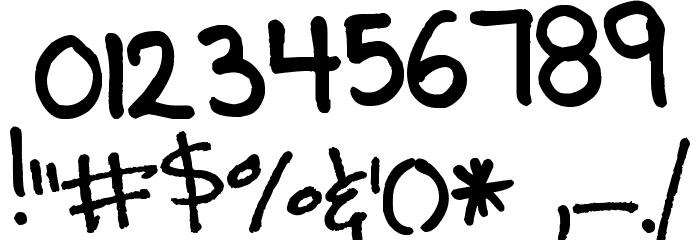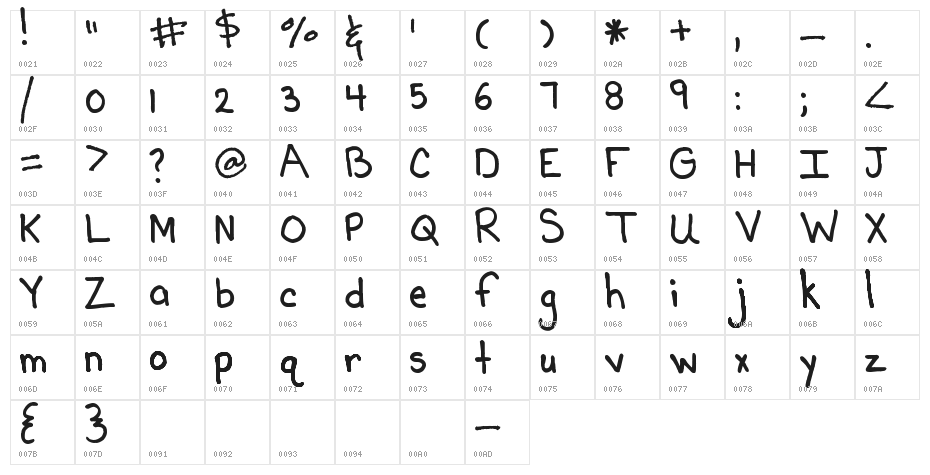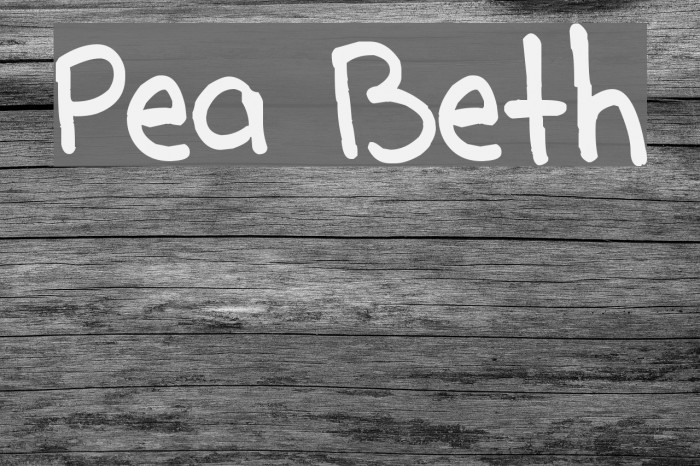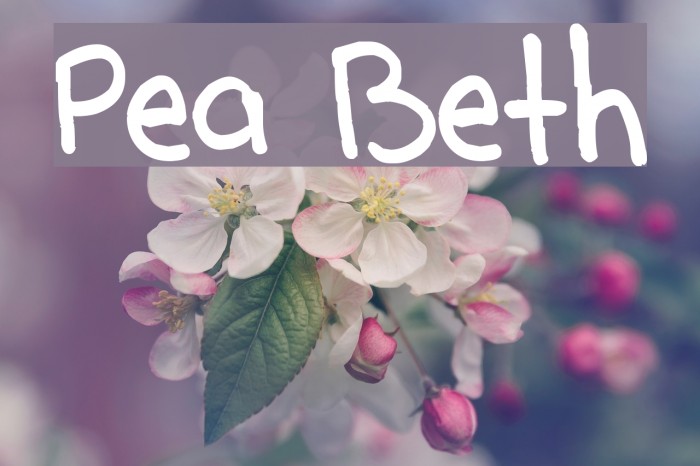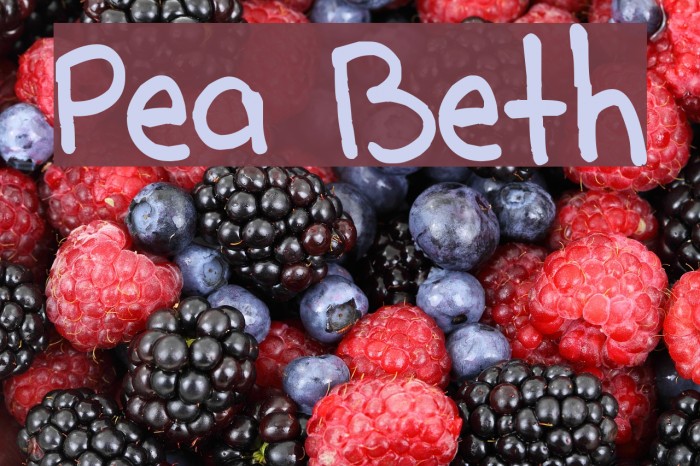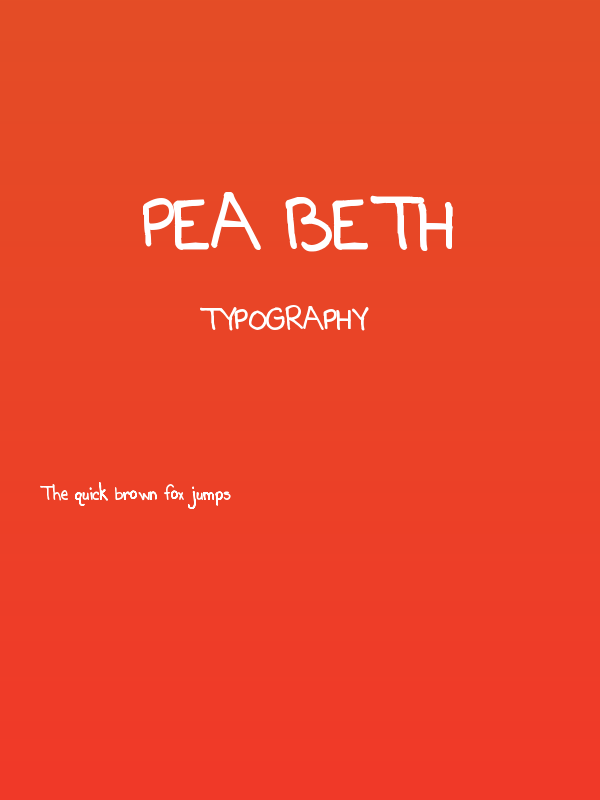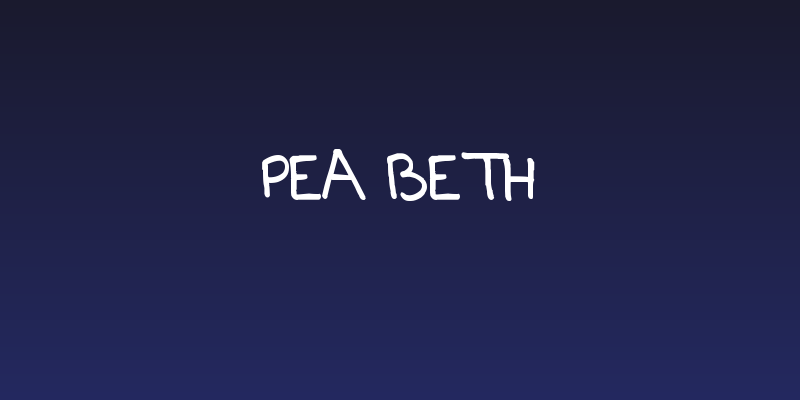
Pea Beth Font
Pea Beth Description
This font features a playful, handwritten style with a casual and informal appearance. The letters are slightly irregular, adding a personal touch that mimics natural handwriting. The strokes are consistent in thickness, giving it a uniform look despite its informal style. The characters are well-spaced, ensuring readability while maintaining a friendly and approachable feel. This font includes a full set of uppercase and lowercase letters, numbers, and a variety of special characters, making it versatile for different uses.
| Use Case | Greeting cards, Personal notes, Informal branding |
| Proposed Projects | Ideal for personal notes, greeting cards, children's books, and informal branding projects. |